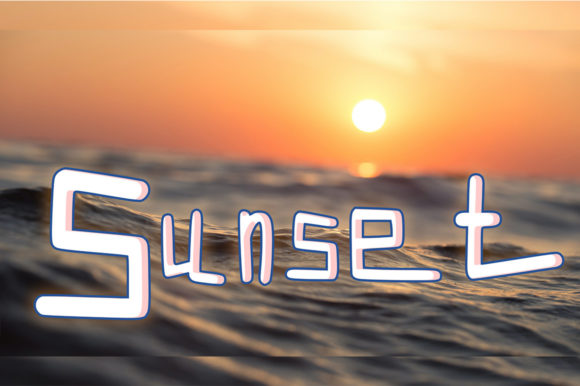
Unleash your inner creativity with Karangsinom Font, the ultimate font style for T-Shirt designs! Dive into a world of edgy, futuristic aesthetics, where your designs take center stage.
Taufik Maulana, the mastermind behind Karangsinom, has crafted a font that embodies the essence of cool sophistication and sleek modernity. Each letter exudes a squared, geometric charm, evoking a futuristic vibe that will set your T-shirt designs apart from the ordinary.
Picture this: your T-shirts adorned with Karangsinom's sharp lines and captivating curves. The font's bold personality demands attention, turning your designs into wearable works of art. Whether you're catering to fashion-forward streetwear enthusiasts or adrenaline-seeking racing fans, Karangsinom has got you covered.
With Karangsinom, the possibilities are infinite. Unleash your imagination and let your T-shirt designs soar to new heights. Dare to be bold, dare to be unique. Embrace Karangsinom today and transform your T-shirt designs into a captivating canvas of futuristic expression!